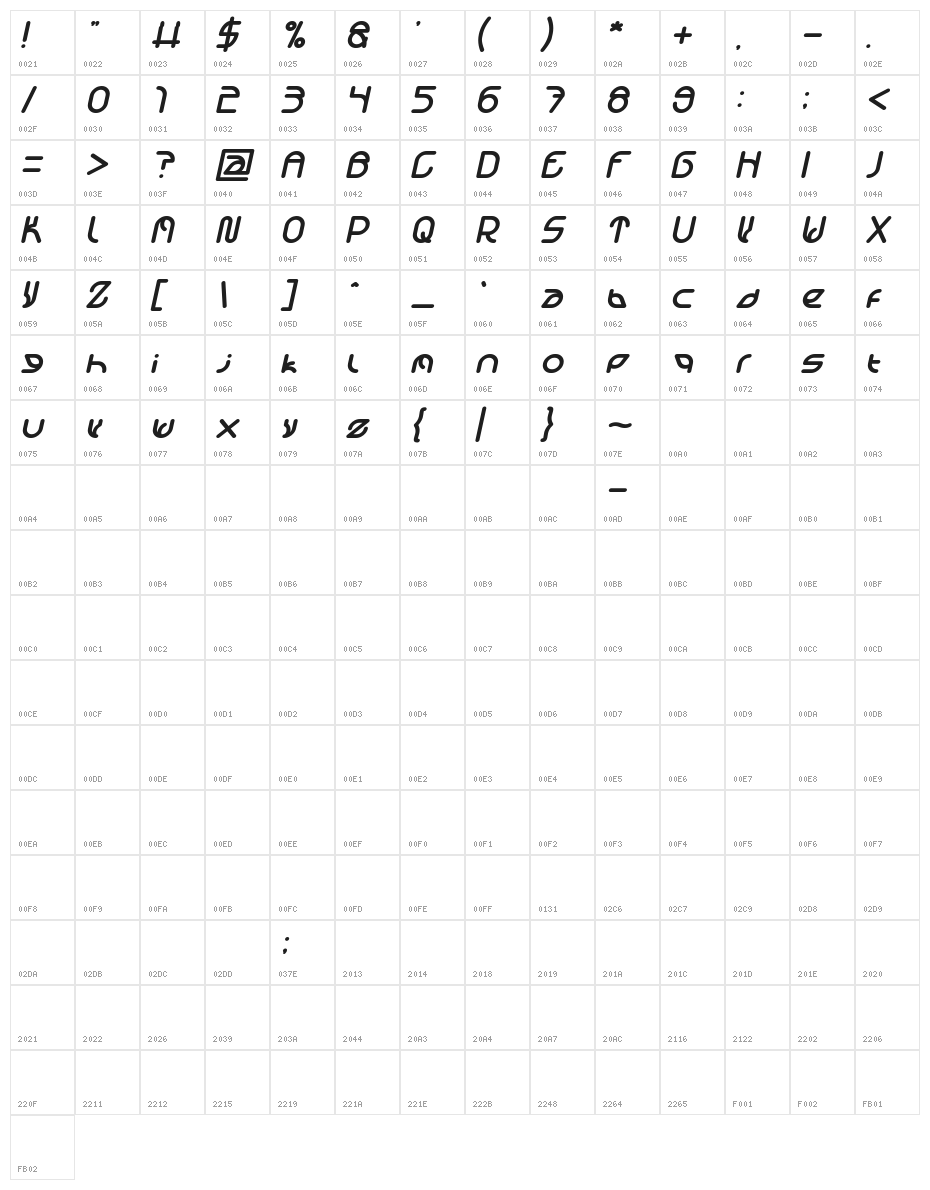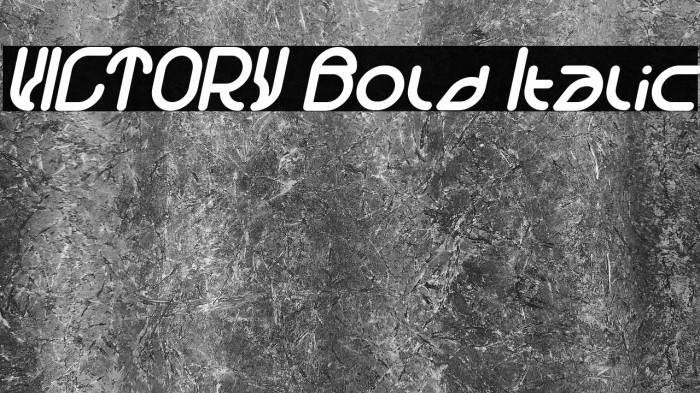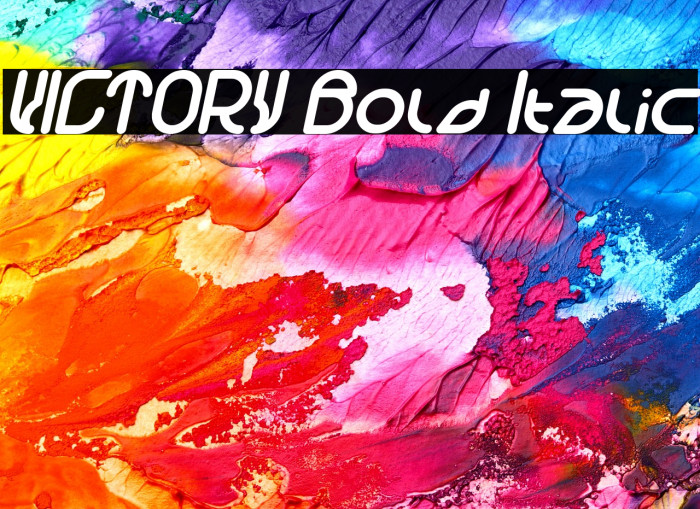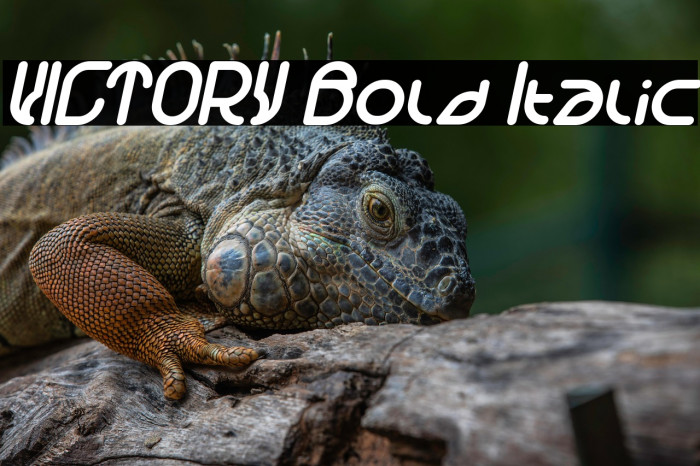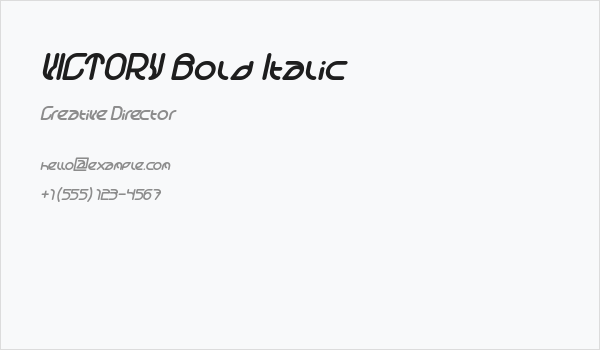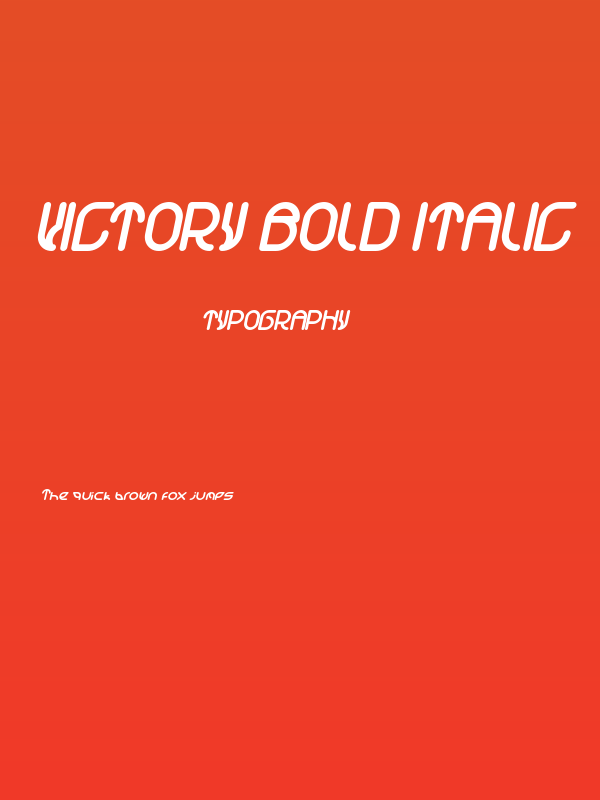
VICTORY Bold Italic Font
VICTORY Bold Italic Description
This font exhibits a bold and italicized style with a modern and dynamic appearance. The characters are rounded and slightly slanted, giving a sense of movement and energy. The uppercase and lowercase letters maintain a consistent stroke weight, contributing to a cohesive look. The numbers and special characters follow the same design principles, ensuring uniformity across all glyphs. The font's boldness makes it stand out, while the italic slant adds a touch of elegance and fluidity. Its rounded edges soften the overall appearance, making it approachable and friendly.